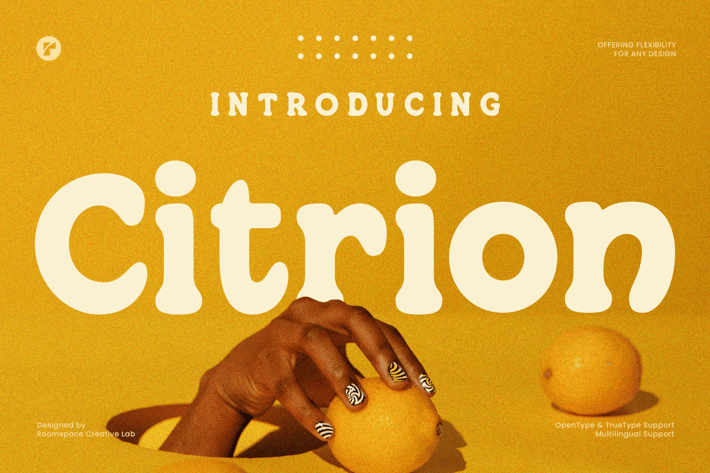
Citrion - Retro Serif Rounded Font
Citrion - Serif Rounded Font
Elevate your designs with Citrion, a bold serif font featuring smooth rounded edges, perfect for projects that demand a unique and timeless aesthetic. Whether you're working on branding, packaging, logos, posters, or retro-themed designs, Citrion effortlessly combines vintage charm with modern versatility.
With its unique design and bold character, Citrion is ideal for creating eye-catching headlines, standout logotypes, and sophisticated brand materials. Its excellent readability and creative flair make it a must-have for designers seeking to add a touch of personality to their projects.
This font is crafted to bring out the best in branding, retro themes, and bold statement pieces, ensuring your designs leave a lasting impression.
Feature:
- Regular and Oblique styles, ensuring flexibility for any design.
- A retro-modern aesthetic that brings a nostalgic yet contemporary feel to your projects.
- Uppercase & Lowercase